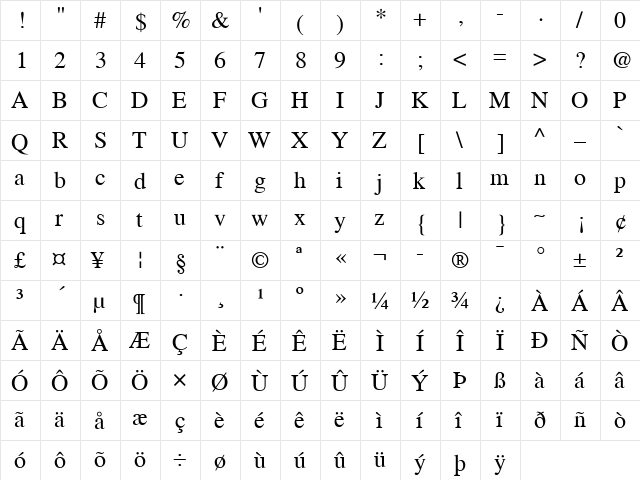
Nimbus Roman No9 L Regular
| Foundry | by URW |
Design Context for Nimbus Roman No9 L Typeface
Nimbus Roman No9 L offers clean, dependable letterforms without strong stylistic allegiance, making it a practical choice for designers who need flexibility.